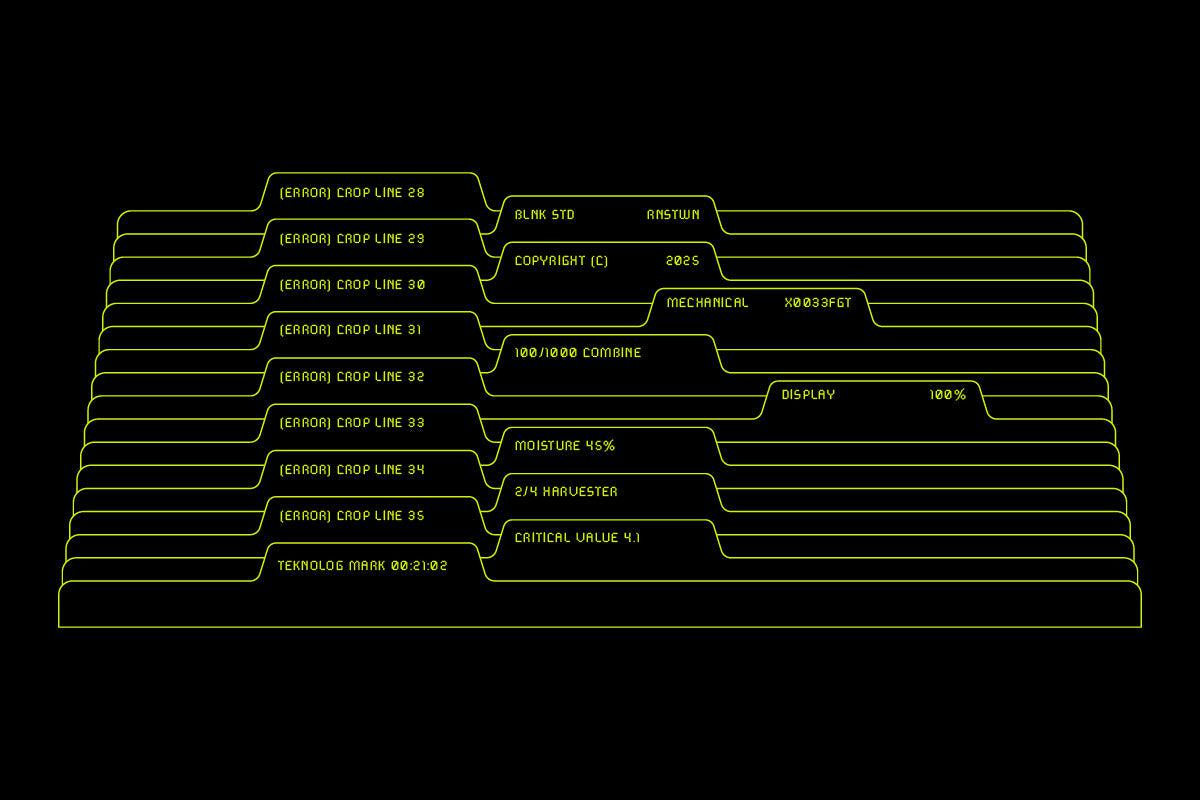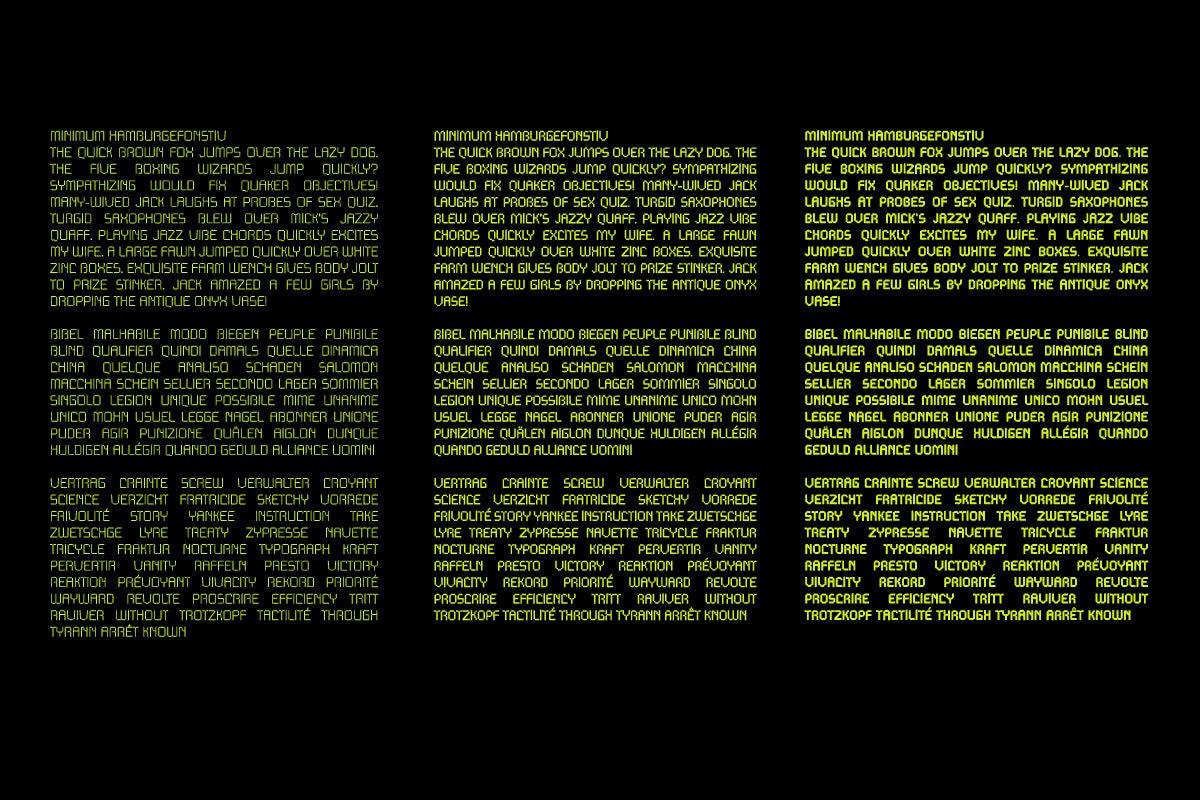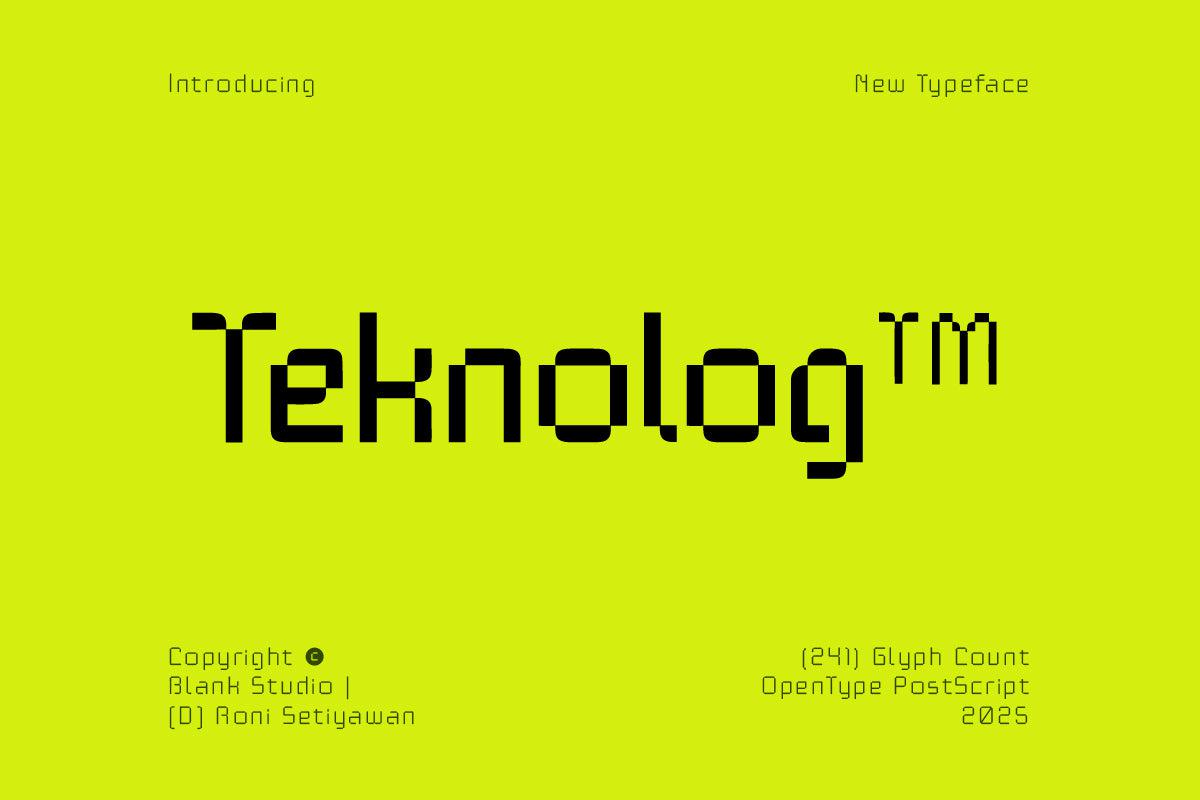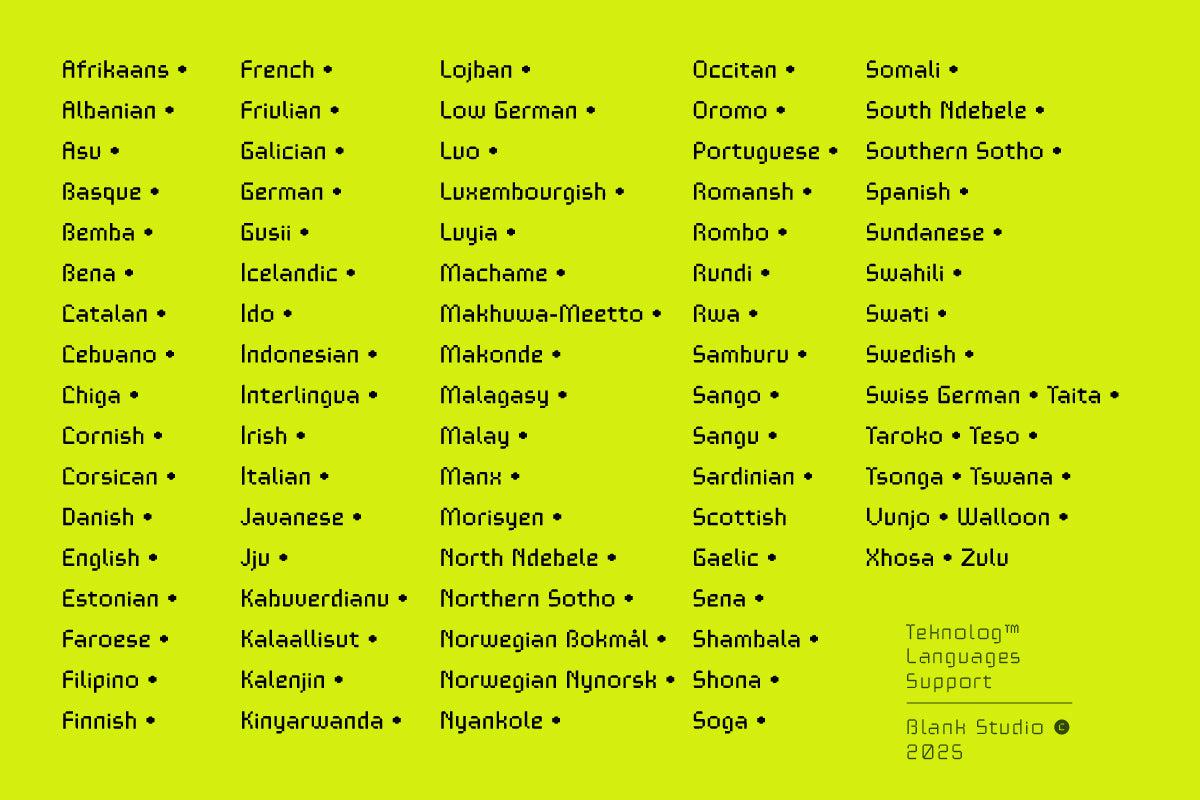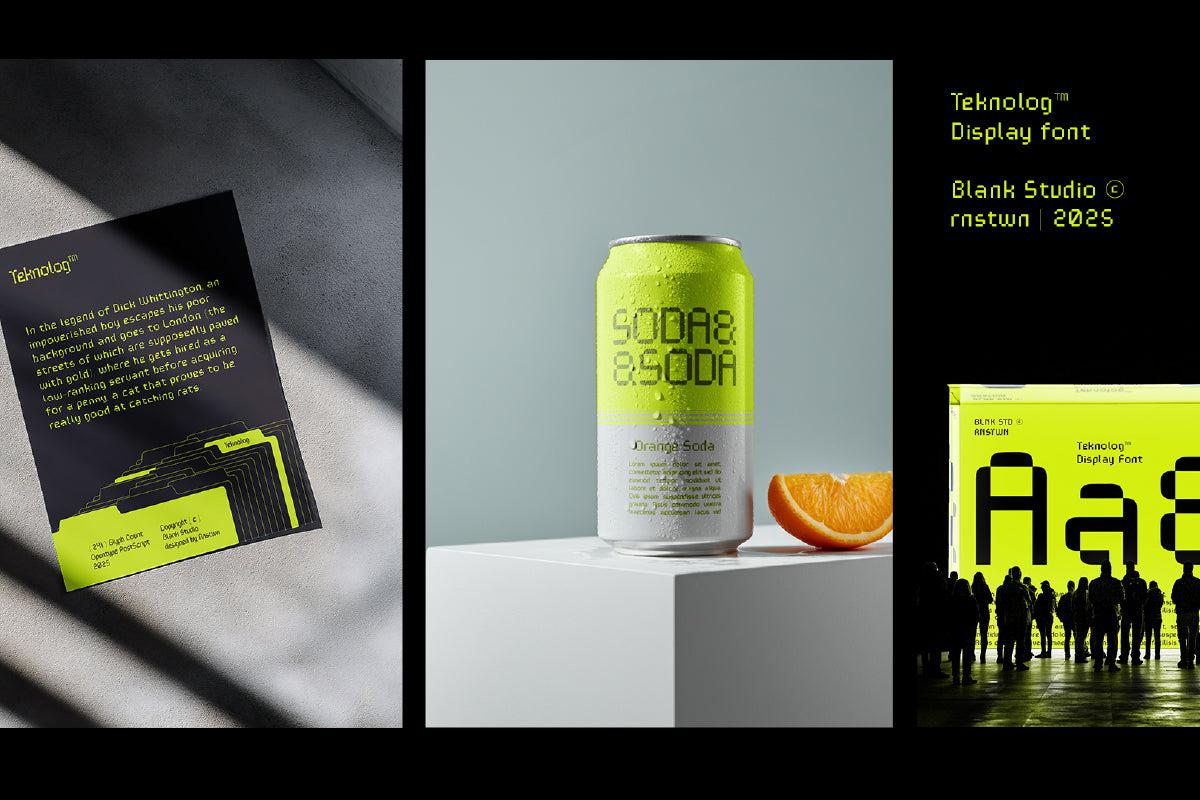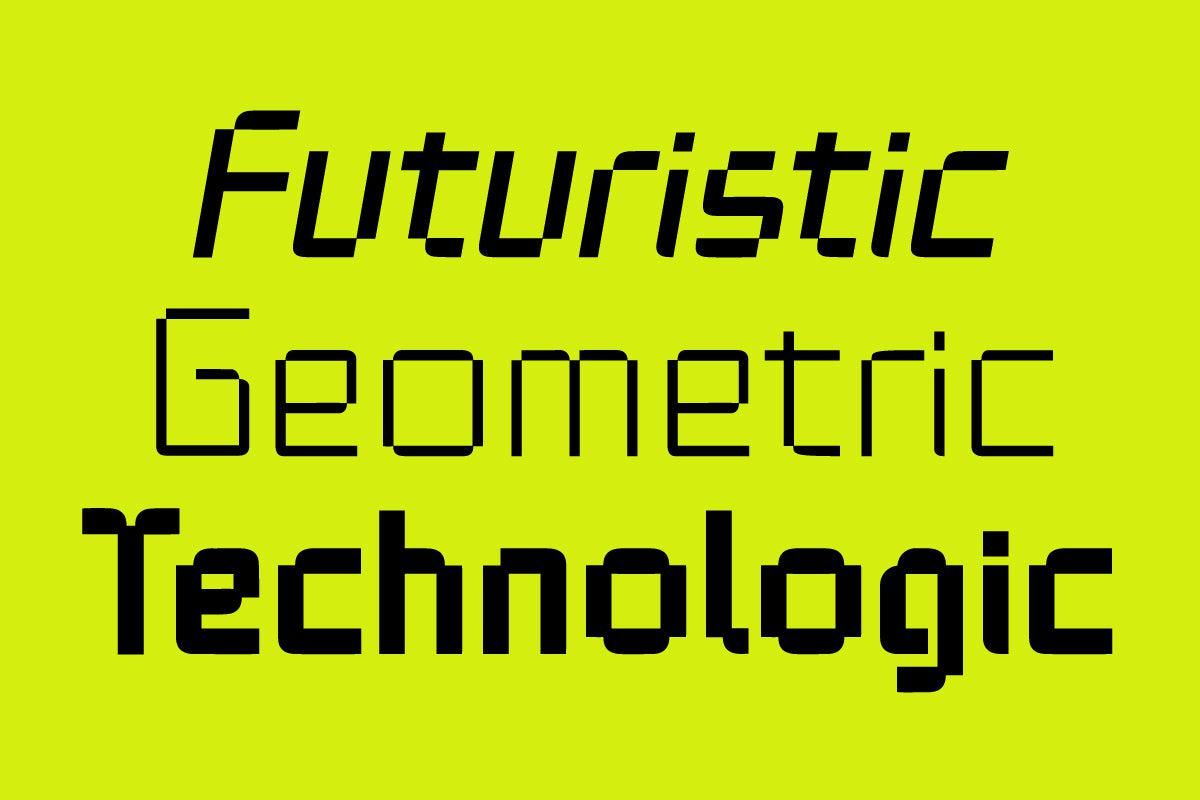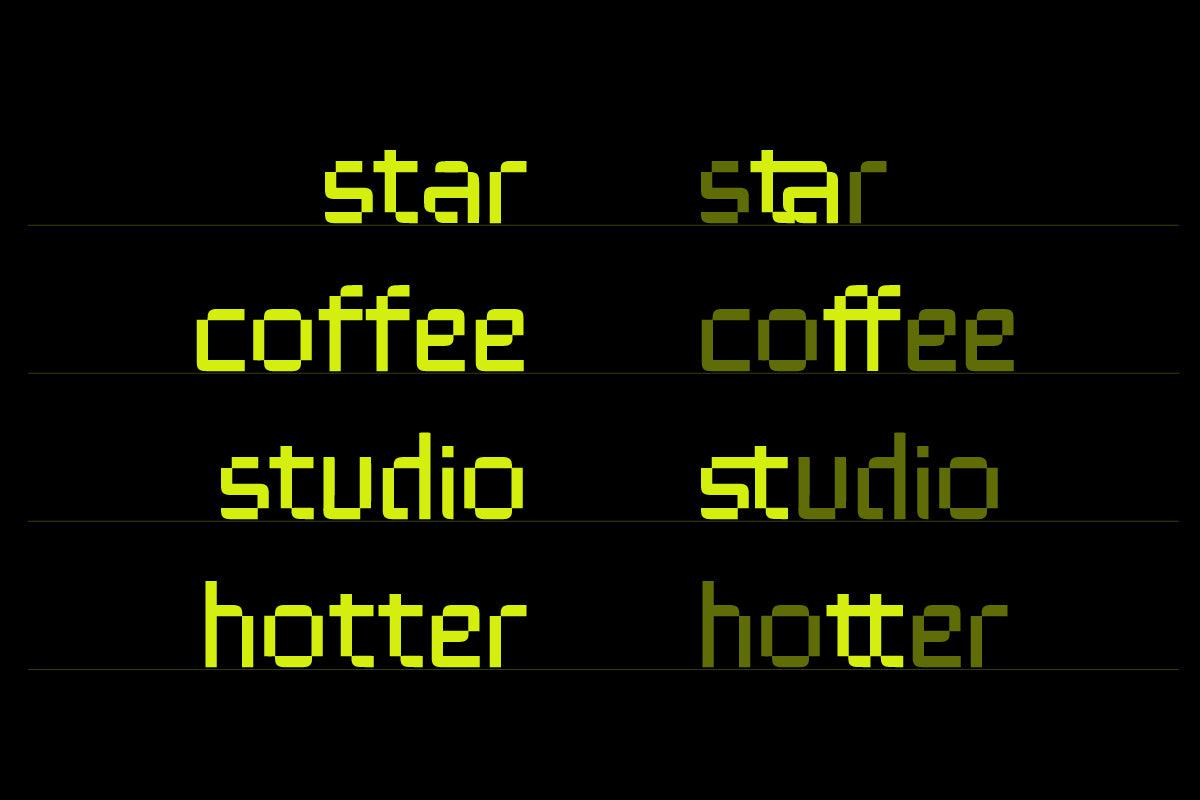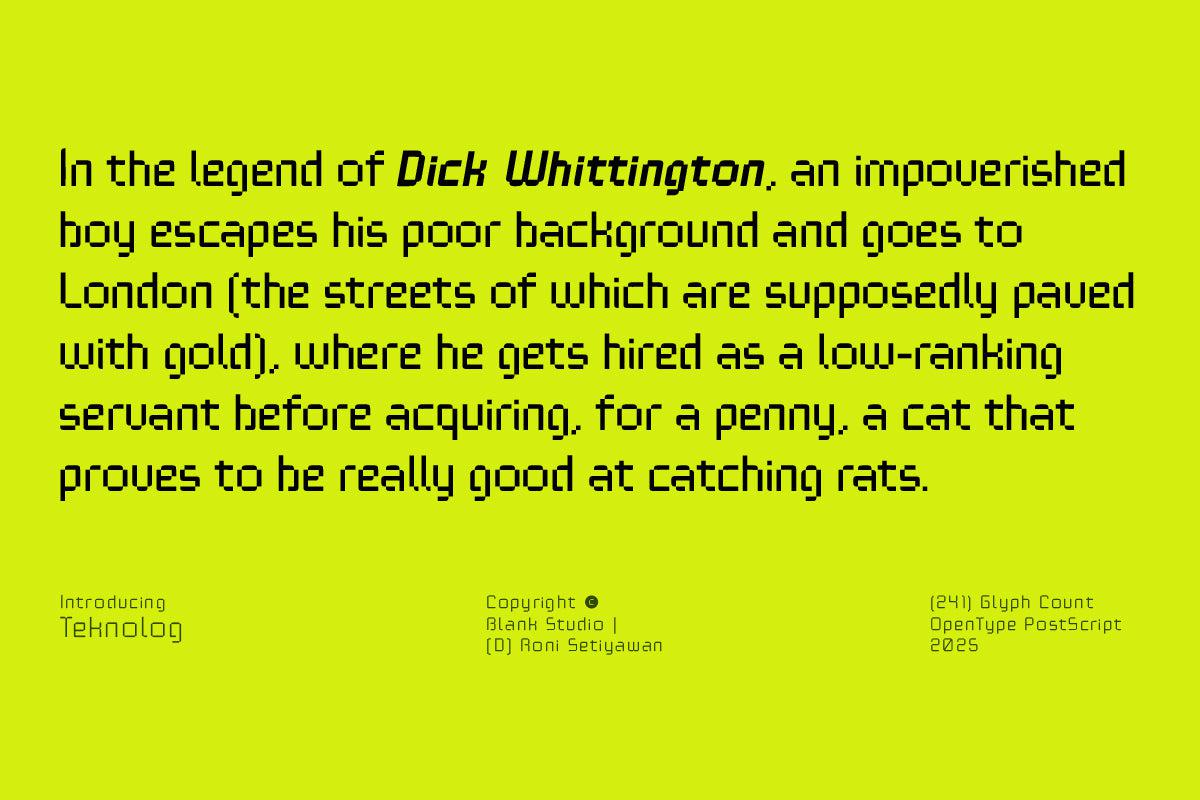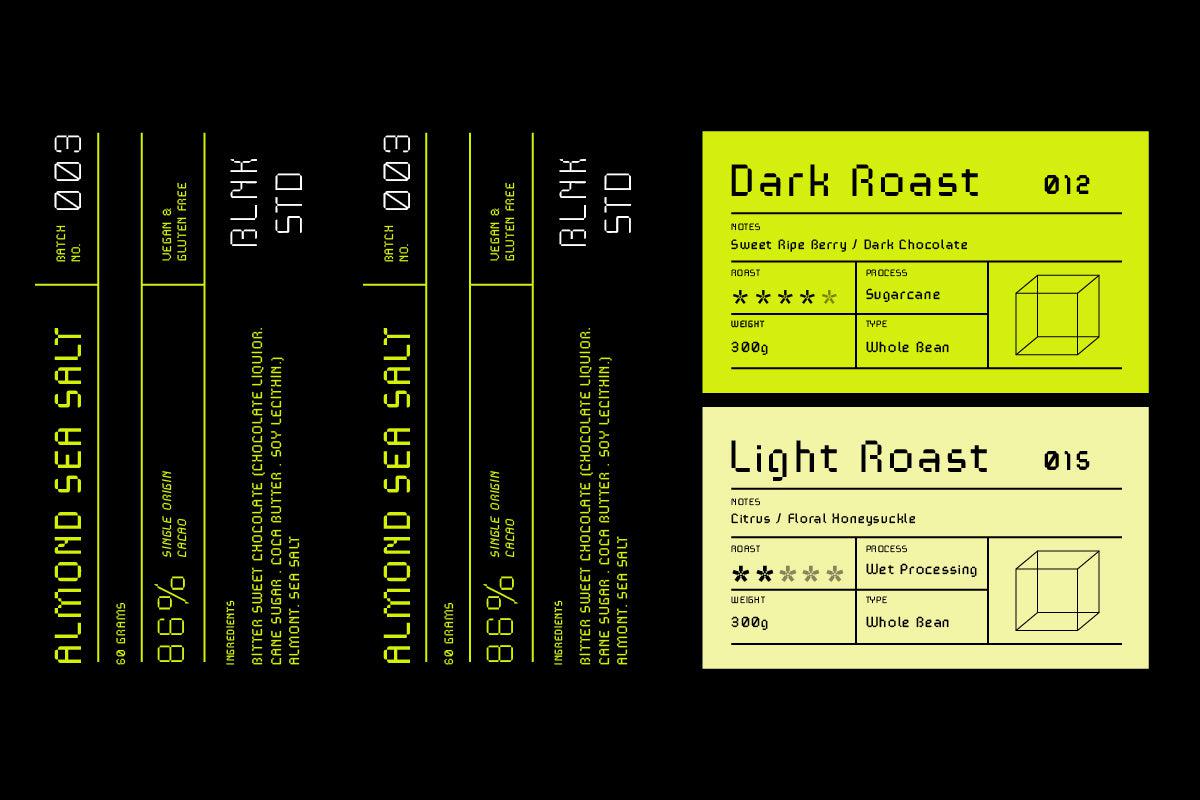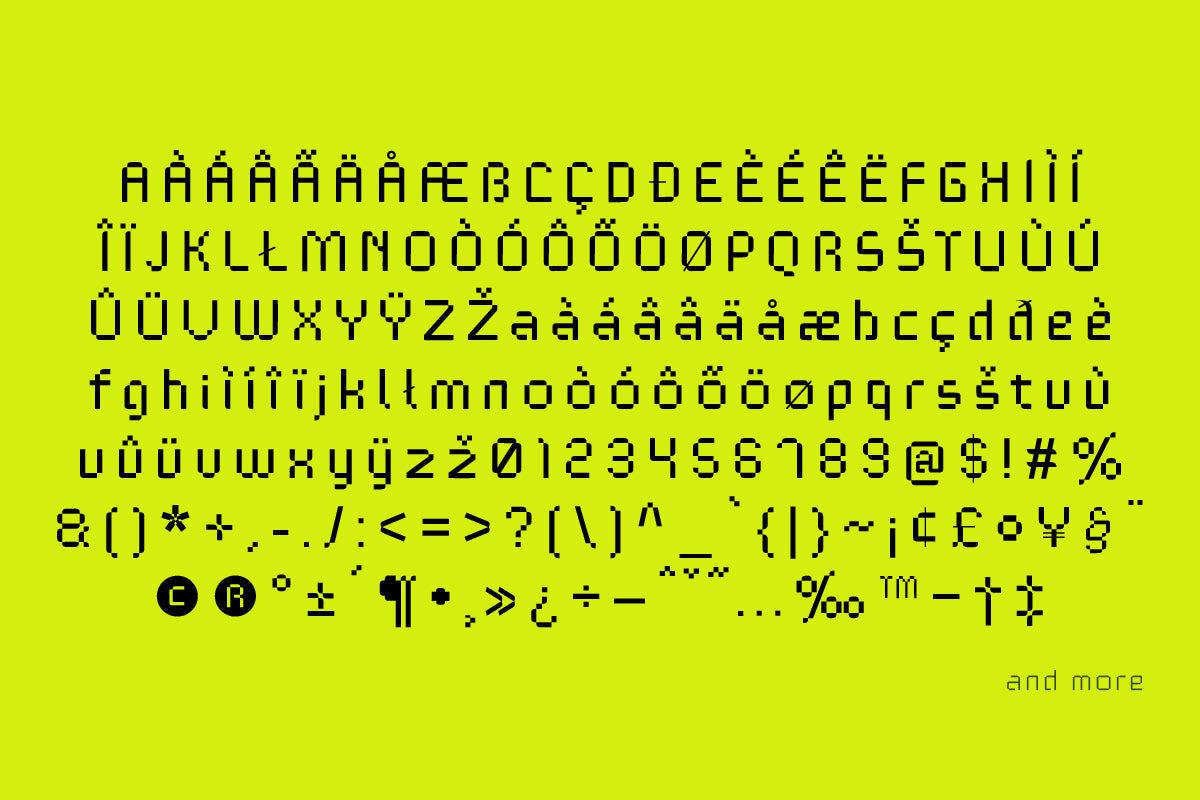
Teknolog™ is a modern, technology-inspired typeface designed to embody the cutting-edge essence of the digital age. With its geometric precision and minimalistic forms, Teknolog is perfect for projects that require a futuristic and innovative touch.
This font features clean, modular characters that exude a sense of order and clarity, making it ideal for user interfaces, tech branding, gaming visuals, and other digital applications. The bold yet structured design ensures high legibility while maintaining a striking visual presence.
With 241 meticulously crafted glyphs and OpenType PostScript format, Teknolog™ offers versatility for a range of design needs, from headlines to display text. Its unique style combines the aesthetics of contemporary digital culture with a hint of retro-futurism, creating a balance between modernity and nostalgia.
Teknolog™ is more than just a typeface; it’s a statement of progress, innovation, and the limitless possibilities of technology.